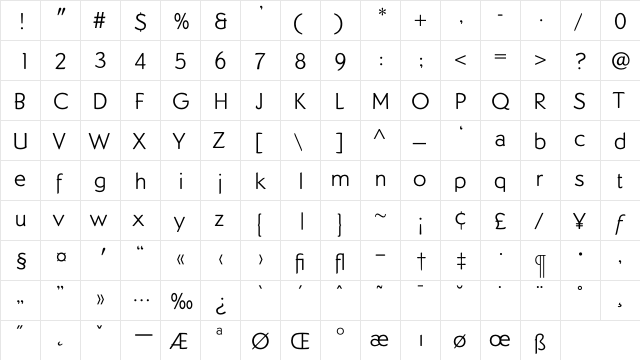
DundeeLight Regular
Design Context for DundeeLight Typeface
DundeeLight offers clean, dependable letterforms without strong stylistic allegiance, making it a practical choice for designers who need flexibility. Its slender proportions lend an understated elegance to any composition.
Pro Tip: Pair DundeeLight with a font of contrasting weight or personality to build a more expressive typographic hierarchy.